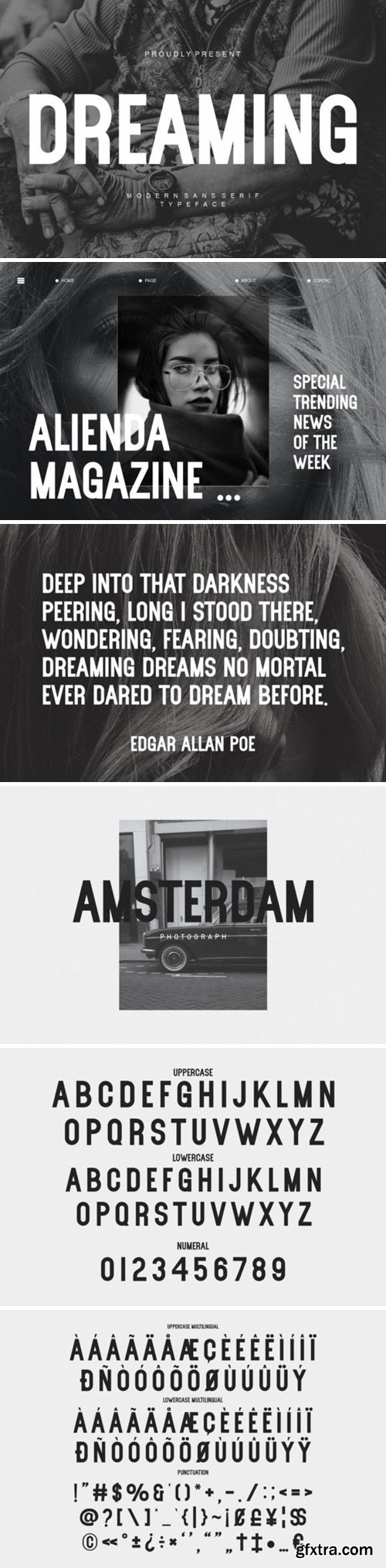
Dreaming is a modern and classic sans serif typeface, inspired by the famous minimalist logo perfect for the purposes of designing templates, brochures, videos, advertising branding, logos, invitation, layout design, elegant crafting, beauty design and others.
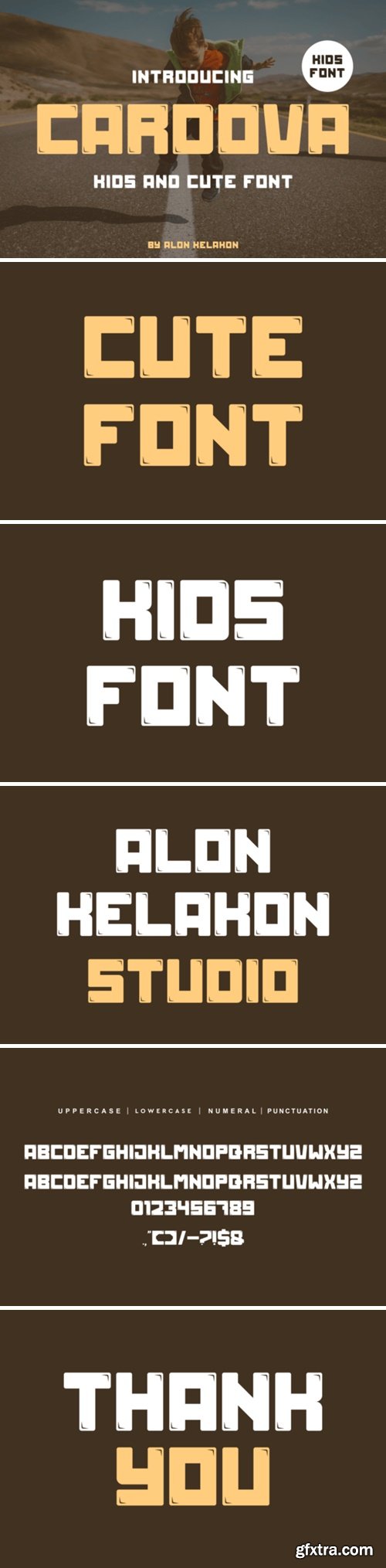
Cardova is a bold, all caps display font featuring the perfect amount of trendiness. Whether you’re using it for crafting, digital designing, presentations or greeting cards making, it’s perfect!
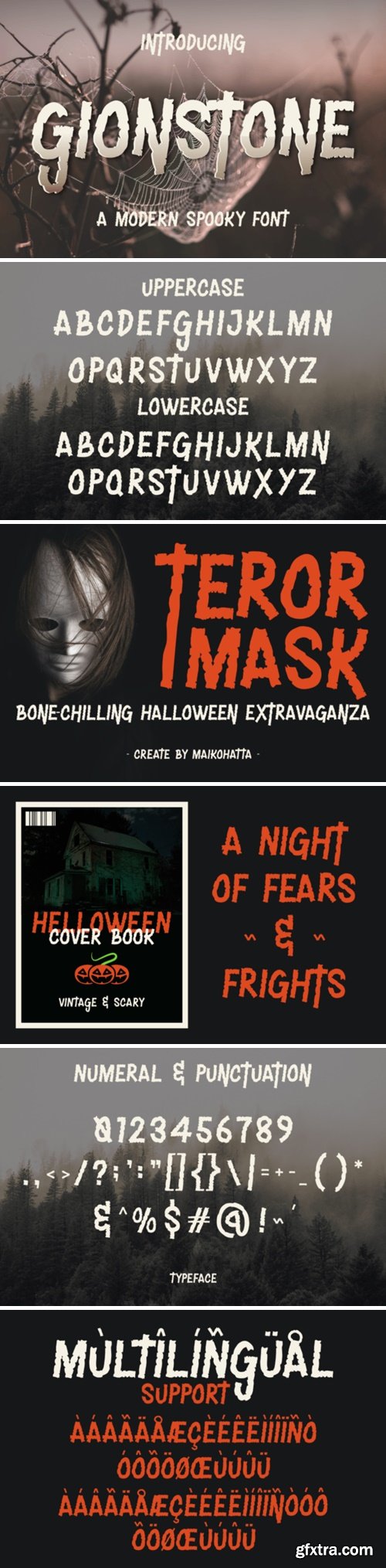
Gionstone is a display font specifically designed to create a spooky, mysterious atmosphere and depict the spirit of Halloween celebrations. This font can be used in various Halloween-related media, such as party invitations, posters, merchandise designs, greeting cards, warning signs, or within website designs with Halloween themes.
Retro Chalkboard is a cute and friendly font that grabs attention. Whether you’re using it for crafts, digital design, presentations, or making greeting cards, this font has the potential to become your favorite go-to font, no matter the occasion!
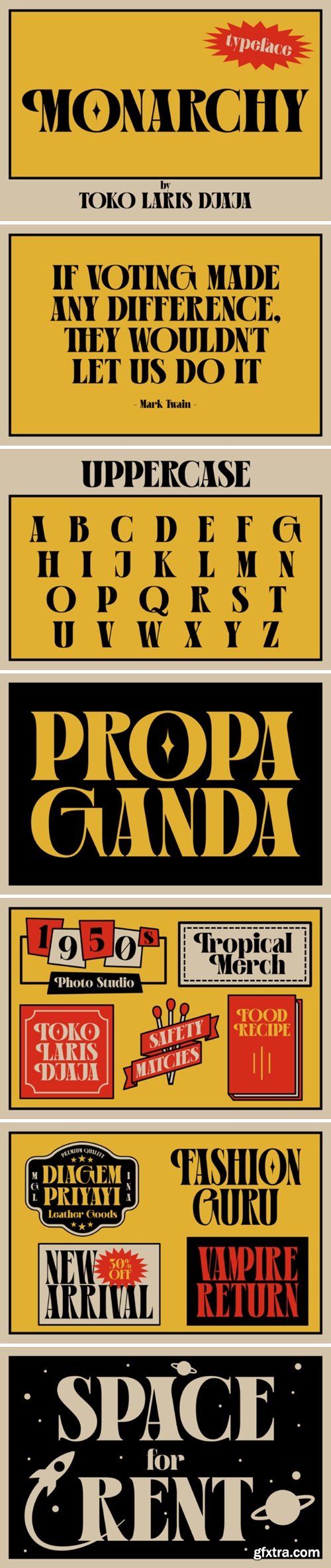
Monarchy is a vintage typeface with elegant fee condensed form and classical proportions. Whether you’re creating posters, book covers, merchandise, stickers, apparel, crafts, invitations, or simply want to infuse some retro joy into your designs, Monarchy font is the perfect choice for your designs.
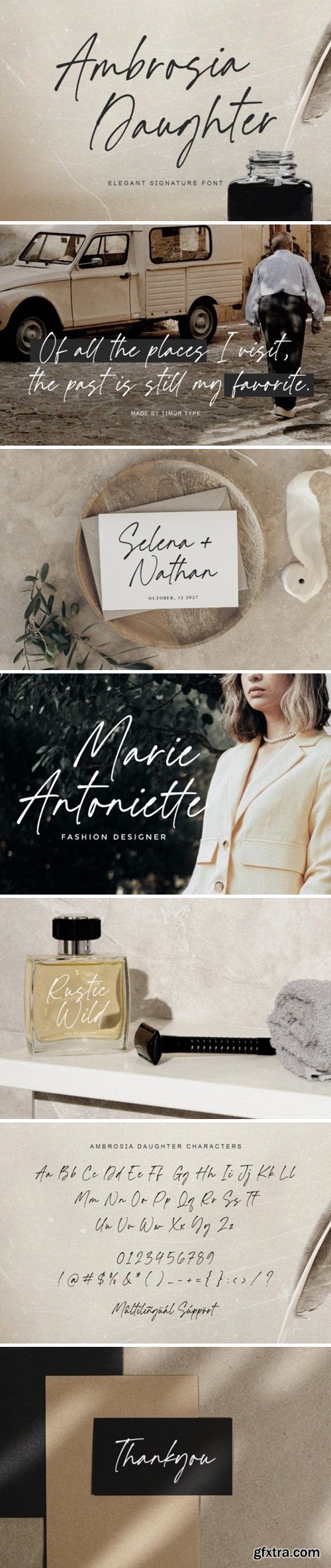
Ambrosia Daughter is a sweet and cursive handwritten font. This gentle font will look gorgeous on a variety of design ideas. It will add a joyful and romantic touch to each of your projects!
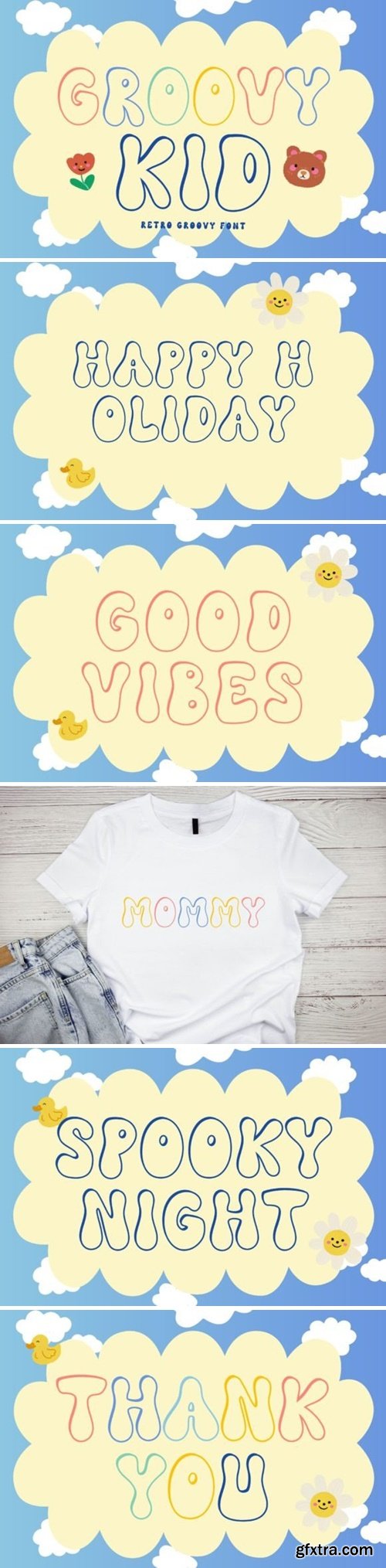
Groovy Kid is a cool retro display font. It embodies playfulness and authenticity and is the perfect choice for all your favorite projects such as blog posts, logos, branding, ads, invitations, greeting cards, planners, photo albums, decorations, and more. Add it to any of your designs, and enjoy the results!
Chandra is an elegant and bold serif font. Fall in love with its incredibly versatile style and use it to create gorgeous wedding invitations, beautiful stationary art, eye-catching social media posts, and much more!
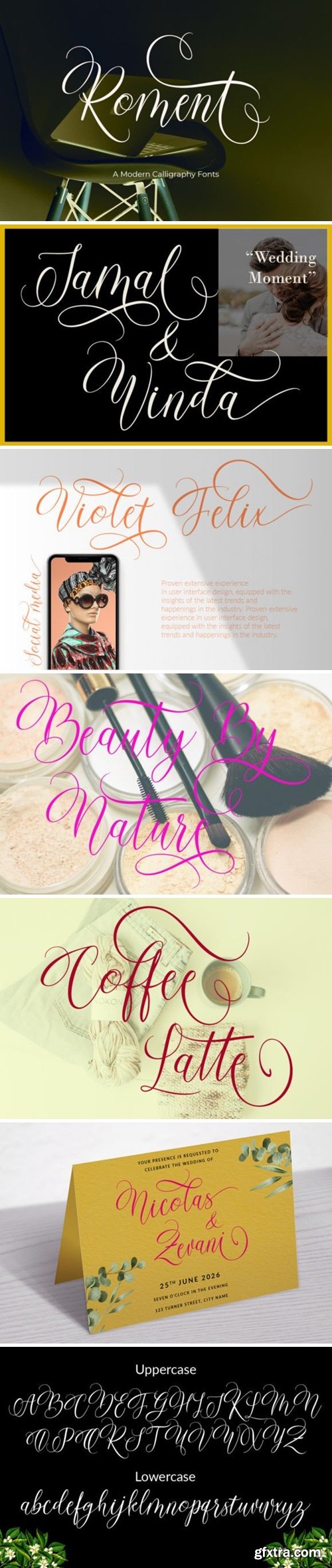
Roment is a new modern script font with an irregular base line. Roment looks beautiful for branding, logos, wedding goods, greeting cards, fashion, lookbook, marketing promotions.
Spooky Market is a bold and spooky decorative font with cute letters. Add it to your Halloween crafts, horror movie posters, t-shirts, and anything else that requires a spectacular look. Masterfully designed to become a true favorite, this font has the potential to bring each of your creative ideas to the highest level!
Retro Witch is an incredibly unique display font. Masterfully designed to become a true favorite, this font has the potential to bring each of your creative ideas to the highest level!
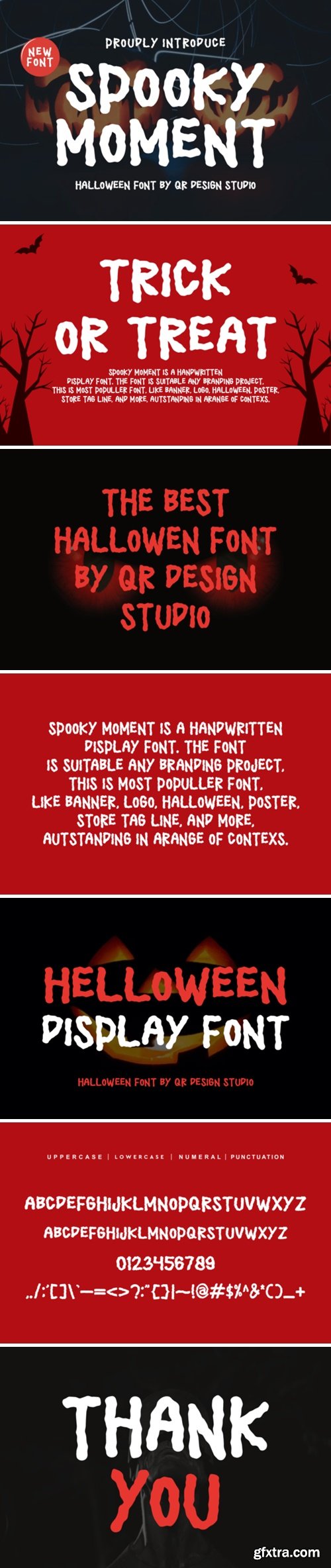
Spooky Moment Font is a bold and authentic display font. The font is suitable for any branding project like logo, hallowen, food, poster, kids, sport, and many more. Outstanding in a wide range of contexts.
Retro Magic is a cool, vintage-style display font. Use it to add that special retro touch to any design idea! It can be used for logos, branding, invitations, stationery, wedding designs, social media posts, and much more!
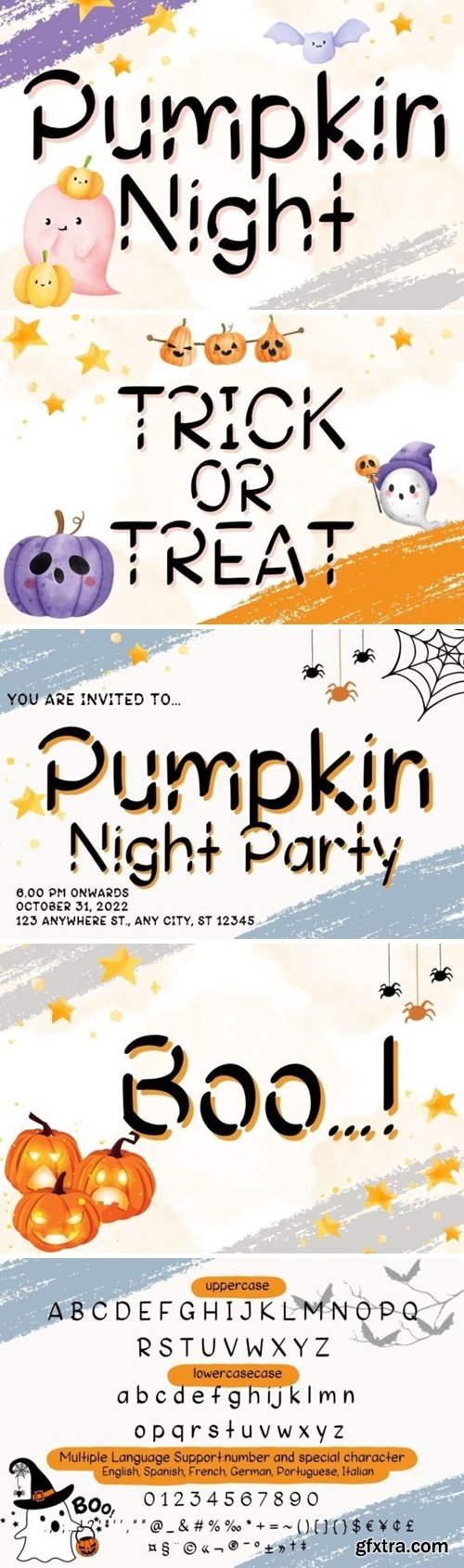
Introducing Pumpkin Night – the perfect blend of Display Fonts and Handwritten Fonts that brings a dash of whimsy to your projects! This enchanting typeface dances across the page with an effortless charm, capturing the spirit of a cozy autumn evening with every stroke. Pumpkin Night’s vibrant characters evoke a sense of warmth, making it an ideal choice for adding a friendly and inviting touch to your designs. Whether you’re crafting invitations, posters, or social media graphics, let Pumpkin Night light up your creative world with its delightful blend of Display Fonts and Handwritten Fonts. Get ready to infuse your projects with the playful essence of a handwritten script that feels just like chatting with an old friend.
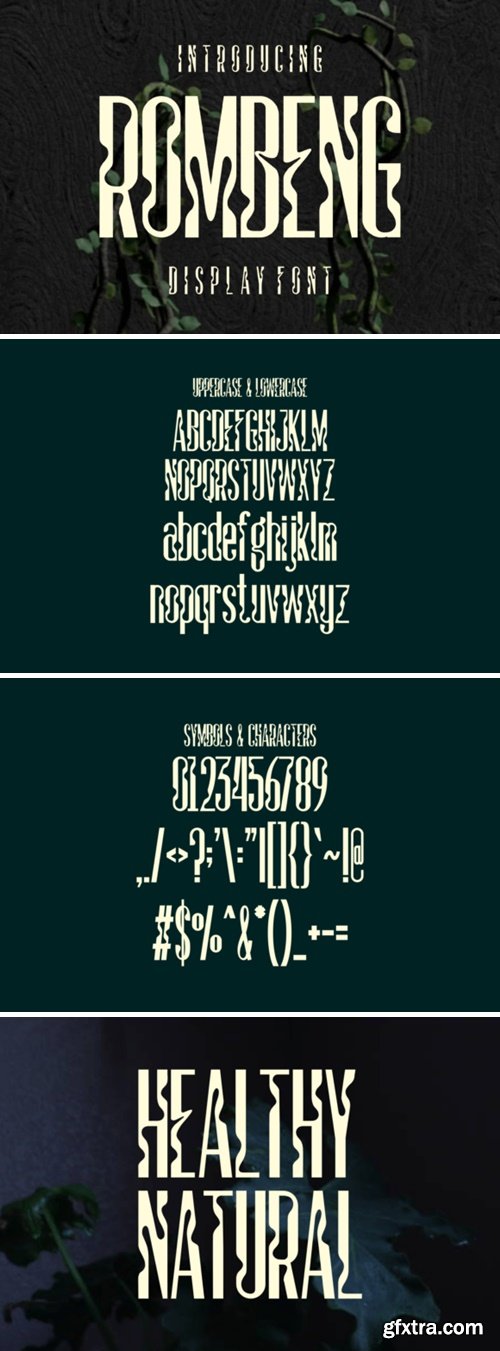
Rombeng is a bold and unique serif display font. No matter the topic, this font will be an incredible asset to your fonts' library, as it has the potential to elevate any creation.
Rosmile is a bold and assertive sans serif font. No matter the topic, this font will be an incredible asset to your fonts' library, as it has the potential to elevate any creation.
Introducing Brown: The epitome of timeless elegance. This unique pairing combines the sophistication of a classy handwritten script with the simplicity of a sleek display font. Whether you’re aiming for refined invitations or upscale branding, Brown Font effortlessly adds a touch of class and versatility to your projects, ensuring your text exudes both charm and professionalism.
Watur Cilek is a fun and friendly display font. Whether you are using it for cartoon-related designs, children’s games, quotes, titles, brand names, book covers, posters, or just any creation that requires a touch of joy, this font is a great choice.